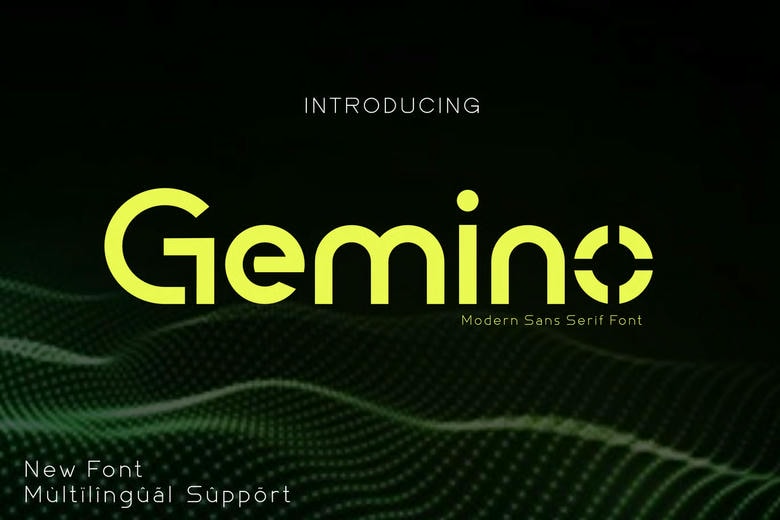
Gemino Font
Gemino is a high-quality sans-serif font created by Auliacreative. You can download it for free and use it for personal projects. It works well for elegant logos, branding, travel ads, magazines, beauty products, packaging, quotes, or as a stylish text overlay on any background.
Gemino Sans Serif Font